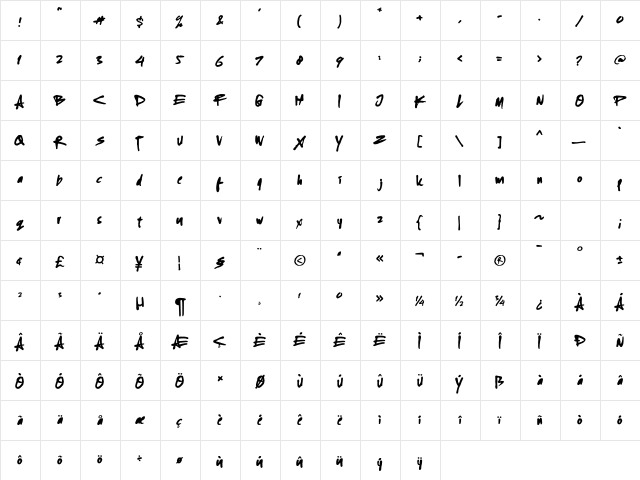
Black Racer Regular
Design Context for Black Racer Typeface
Black Racer is a composed and adaptable typeface that performs quietly and consistently across a wide range of design contexts.
Pro Tip: Pair Black Racer with a font of contrasting weight or personality to build a more expressive typographic hierarchy.